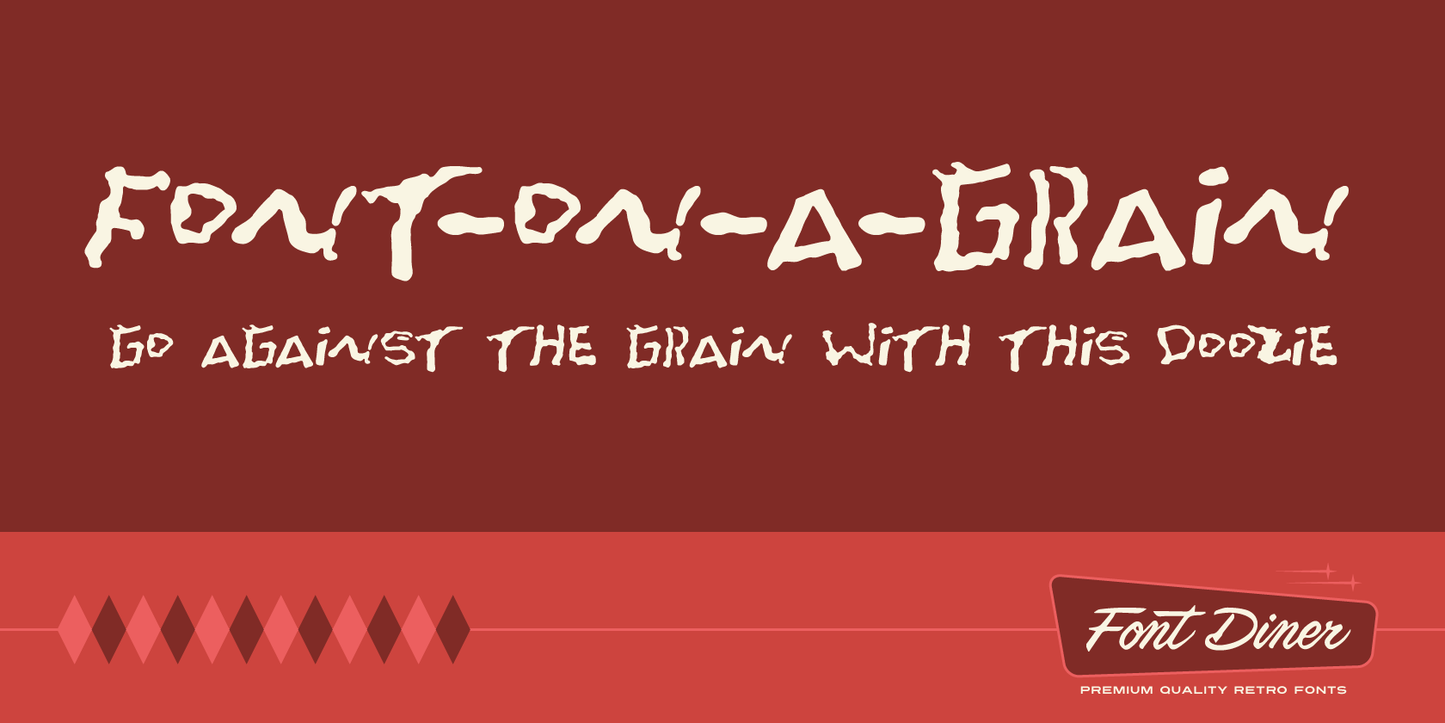
We tracked down one of the most skilled artisans we could find that was a master of Mexico’s most ancient art. . . “Esscribe Poco Alphabetico con Blanco Arroz” - Literally translated means “Writer of Little Letters on White Rice!”
We were quickly dumbfounded by the amazing feats of this fine artisan as he began to create for us the full alphabet on 2 grains of rice. And to you we offer with our warmest greetings from Mexico Font-On-A-Grain.
Font-On-A-Grain Font
Font-On-A-Grain